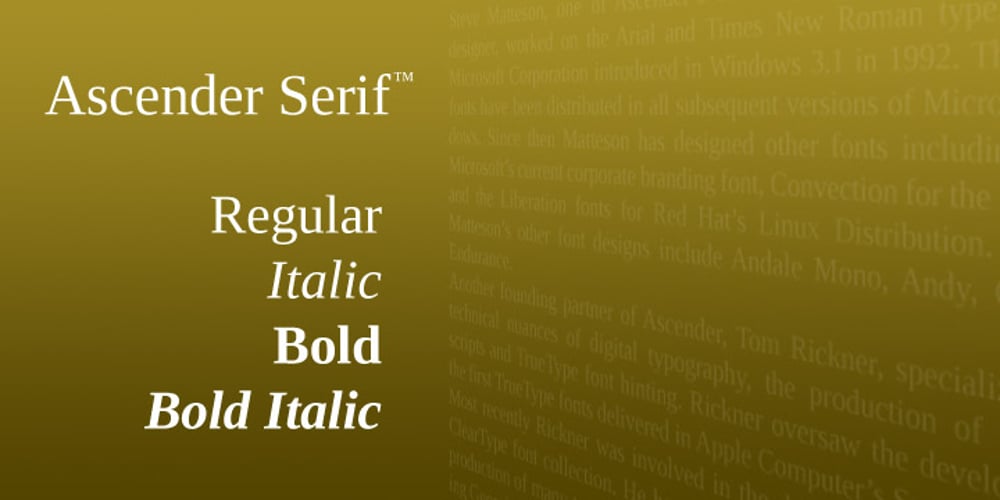
Ascender Serif Font Family was designed by Steve Matteson and published by Ascender. Ascender Serif contains 4 styles and family package options. Ascender Serif was designed by Steve Matteson as an originative, unique serif design that is metrically compatible with Times New Roman. Ascender Serif offers refined on-screen readability characteristics and the pan-European WGL character set and solves the needs of developers searching for width-compatible fonts to address document portability across various platforms.